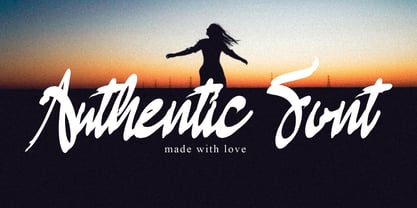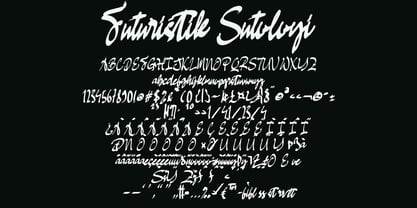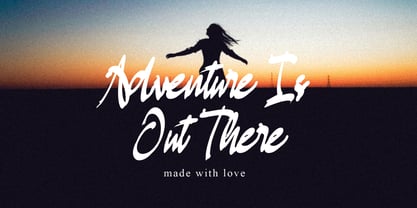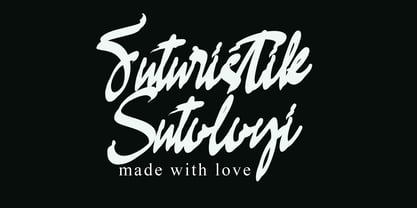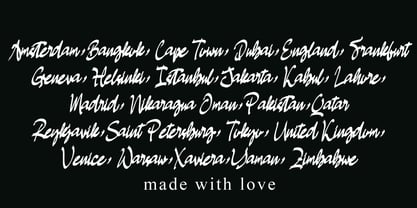
Futuristik Sutoloy
by Ayska
The Futuristik Sutoloy Font Family was designed by Dhoni Trihatmoko and published by Ayska. Futuristik Sutoloy contains 1 styles. More about this family
Journey into the mesmerizing realm of Futuristik Sutoloy, an artful blend of up-to-date typeface sophistication and the irresistible charm of handwritten calligraphy. This unexpected beacon of artistic brilliance radiates an enticing allure that beguiles the senses. Infuse your blog with the dynamic vividness of Futuristik Sutoloy, or let its potent appeal magnify the resonance of your printed invitations. Revel in the refreshing vibrancy it lavishes on your poetic creations. Delve deep into the irresistible appeal of Futuristik Sutoloy, an ideal extra touch to amplify the awe-inspiring feeling in your photography and concoct a distinctive style in your home designs. This extraordinary font wields the transformative power to transmute the ordinary into ultra-splendorous, embedding engaging artistry into every pixel of your projects. Allow Futuristik Sutoloy to be your compass in the expansive cosmos of artwork and design, leading you towards an oceanic realm of unparalleled imagination. Set sail on this artistic expedition with Futuristik Sutoloy, and observe your imaginative concepts blossom into breathtaking digital artistry.
Designers: Dhoni Trihatmoko
Foundry: Ayska